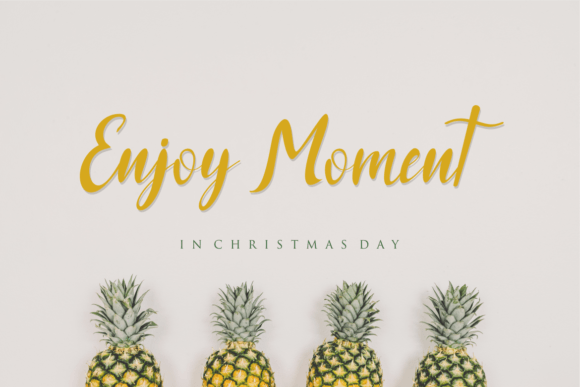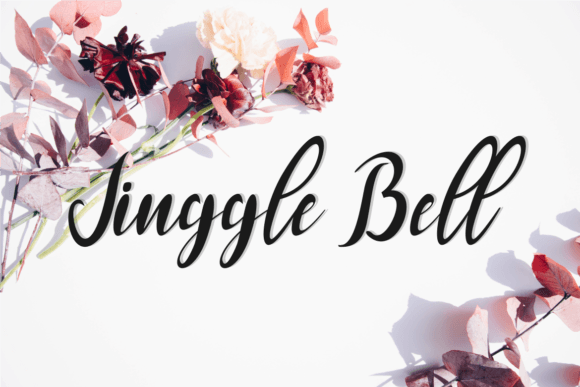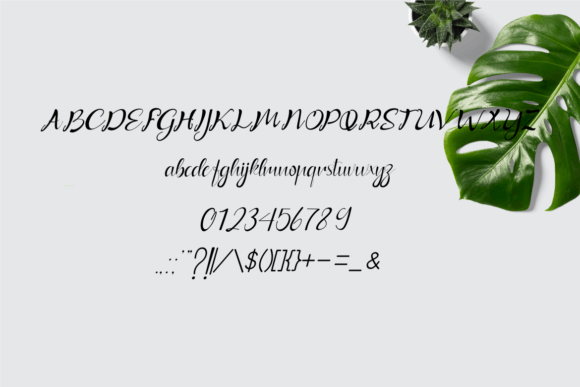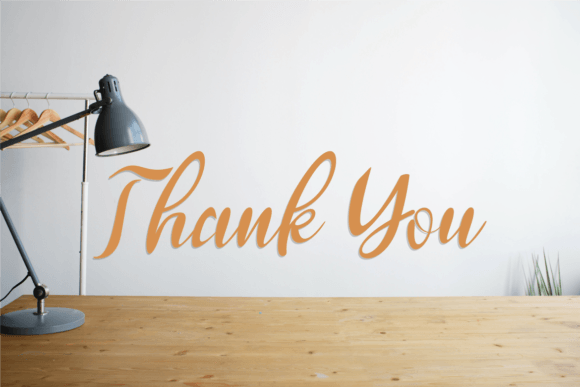
Introduction to Quansa Font
Remember that moment when you stumbled upon the perfect font to elevate your design project? For designers, finding the right font can be a game-changer, adding that extra oomph to make your work truly stand out. If you’re on the hunt for a font that exudes warmth and personality, you’re in luck – we’re excited to introduce you to the lovely Quansa Font.
This charming, cursive handwritten font is a treasure trove of creativity, perfect for adding a touch of whimsy to your designs. With its high-quality design and transparent background, Quansa Font is an excellent addition to any designer’s toolkit. Whether you’re working on a free download project or a commercial design, this versatile font is sure to become your new go-to resource.
Key Features of Quansa Font
- High-quality design resource ideal for creative projects, including graphic design, digital art, and typography.
- Features a transparent background, allowing for seamless integration with any design element.
- Designed with precision, Quansa Font offers crisp and clear typography, perfect for both print and digital applications.
Honest Review: Quansa Font
As a designer, I’m always on the lookout for high-quality design resources to elevate my creative projects. Recently, I stumbled upon the Quansa Font, and I’m excited to share my honest review with you.
- High-quality typography: The Quansa Font boasts beautiful, modern lines that make it perfect for a variety of design projects.
- Limited font styles: While the Quansa Font is beautiful, it’s limited to a single style, which may not be ideal for designers who need a variety of font options.
Quansa Font is perfect for a variety of creative projects, including logos, business cards, and website headers. Its clean and modern design makes it ideal for any industry or niche. With its transparent background and high-quality design, Quansa Font is a valuable addition to any design resource library.